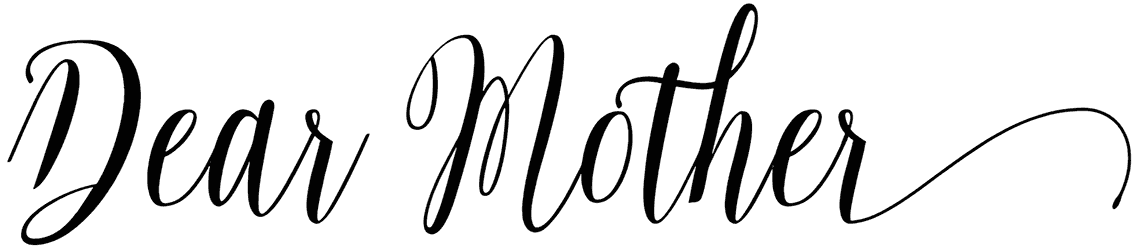
Dear Mother Font
Dear Mother font has that soft calligraphy glow that instantly makes a design feel more personal, but not in a fragile way. Its light handwritten flow gives the letters a graceful, luxurious spark, the kind that works beautifully when a layout needs warmth, elegance, and a little emotional pull without becoming too decorative.
Use this calligraphy font for Mother’s Day cards, boutique packaging, wedding notes, perfume labels, beauty branding, heartfelt quotes, or café menus that need a gentle signature touch. Pair Dear Mother font with cream paper, floral photography, gold foil, or soft shadows, and the whole piece starts feeling quietly expensive.